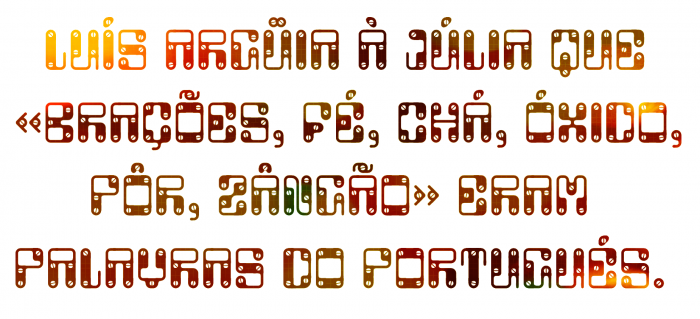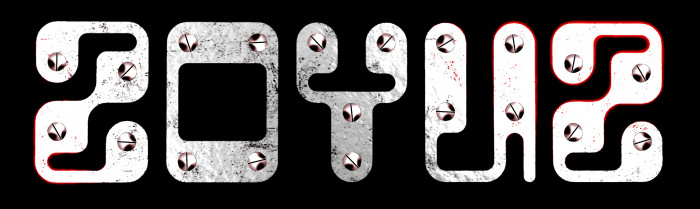
A lot of zcrewz ????? and a lot of fun ? with these glyphs, all well tight! "Soyuz" (Союз) means "Union" in Russian.
@Yautja: Thanks, pal! (My hand hurt from tightening so many screws ?, hehehe.)
Nice work, the sample is awesome. You'd be surprised, a lot of things I see at work look just like your letters, fuses and electric breakers and grounds and such.
I wonder how their hands are doing now. I hope they made a recovery…
@winty5: Thank you very much. Actually, the same thing happens to me: I often see letters in the most unexpected places. This particular font was born from the association of this pair of images: some numbers screwed to a door (Master djnippa's sample in his NCD Enamel font) plus an old wine opener... Et voilá!
A black version without screws is here. Enjoy it, please.